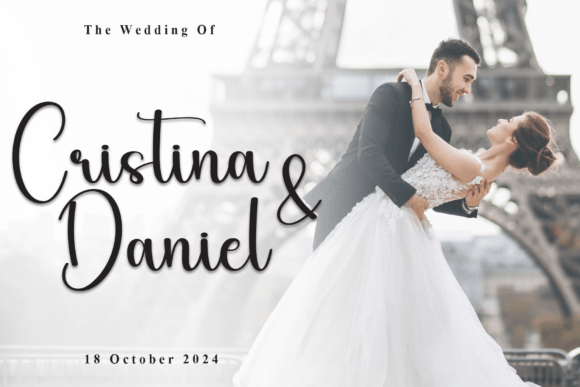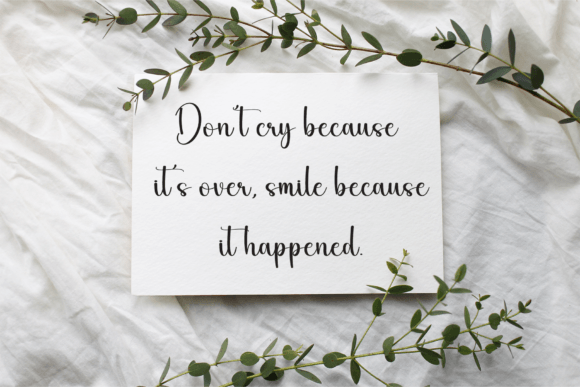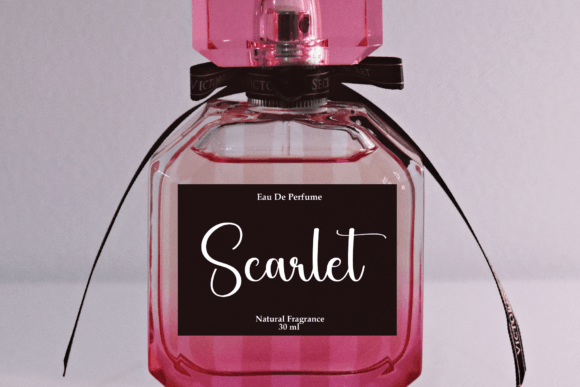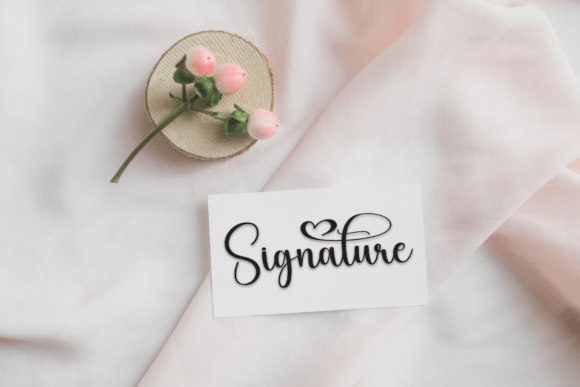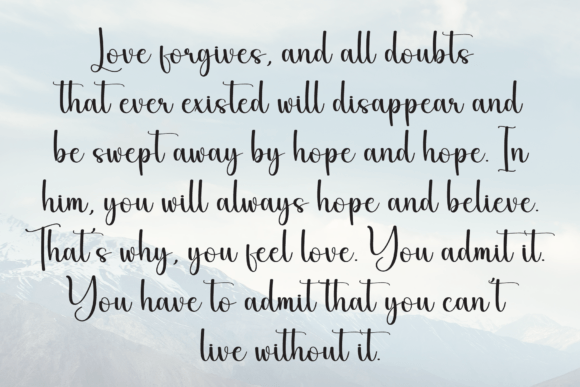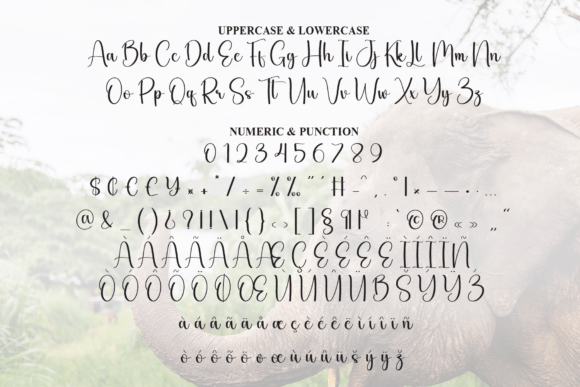
Introducing Elephant Font: A Playful Handwritten Delight
Are you tired of using the same old fonts in your designs? Look no further than Elephant Font, a playful handwritten font that’s sure to add a touch of whimsy to your projects. With its charming heart-shaped swashes and flowing, natural style, Elephant Font is the perfect choice for designers and crafters looking to add some personality to their work.
What is Elephant Font?
Elephant Font is a unique and charming handwritten font that’s designed to bring a sense of playfulness and fun to your designs. Its distinctive heart-shaped swashes add a touch of elegance and sophistication, making it perfect for a wide range of projects, from wedding invitations and greeting cards to branding and packaging.
Key Features of Elephant Font
- Playful handwritten style: Elephant Font features a flowing, natural style that’s reminiscent of handwritten script.
- Charming heart-shaped swashes: The font’s distinctive heart-shaped swashes add a touch of elegance and sophistication to your designs.
- Warm and whimsical: Elephant Font has a warm, inviting feel that’s perfect for designs that need a touch of personality.
- Versatile: The font is suitable for a wide range of projects, from digital designs to print materials.
Why Choose Elephant Font?
There are many reasons why Elephant Font is a great choice for designers and crafters. Here are just a few:
- Unique and eye-catching: Elephant Font is a one-of-a-kind font that’s sure to grab attention.
- High-quality design: Elephant Font is designed to the highest standards, ensuring that your designs look professional and polished.
Design Ideas Using Elephant Font
Elephant Font is a versatile font that can be used in a wide range of designs. Here are a few ideas to get you started:
- Wedding invitations: Elephant Font is perfect for wedding invitations, with its elegant and playful style.
- Greeting cards: The font’s charming heart-shaped swashes make it ideal for greeting cards, from Valentine’s Day to Christmas.
- Branding and packaging: Elephant Font can add a touch of personality to your brand, making it stand out from the competition.
- Digital designs: The font is perfect for digital designs, from social media graphics to blog posts.
Tips and Tricks for Using Elephant Font
Here are a few tips and tricks to help you get the most out of Elephant Font:
- Experiment with different sizes: Elephant Font looks great in a range of sizes, from large headings to smaller body text.
- Combine with other fonts: The font pairs well with other fonts, so don’t be afraid to experiment with different combinations.
- Use the swashes wisely: The heart-shaped swashes are a distinctive feature of Elephant Font, so use them to add a touch of elegance to your designs.
In conclusion, Elephant Font is a playful handwritten font that’s perfect for designers and crafters looking to add a touch of whimsy to their projects. With its charming heart-shaped swashes and flowing, natural style, Elephant Font is sure to become a favorite in your font collection.